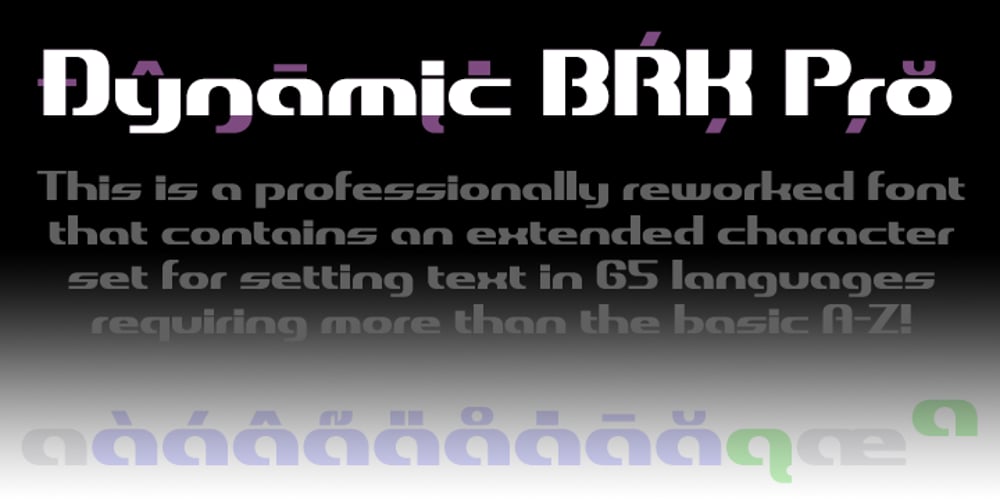
Dynamic BRK Pro Font Family was designed by Roger S. Nelsson, Brian Kent and published by CheapProFonts. Dynamic BRK Pro contains 2 styles and family package options. Dynamic by name, and dynamic by nature – this sleek font is perfect for logos and hightech quotes. The original lowercase f had a big overhang – I redesigned it so it fits better with accented letters, but also kept the original shape as a contextual alternate: the font automatically uses the “large” f before any low letters… Also the lowercase j would crash into any preceding letters with a righthand descender – so I also designed an automatic alternate j. Result: no colliding letters! The Slanted version adds a touch of speed. ALL fonts from CheapProFonts have very extensive language support: They contain some unusual diacritic letters (some of which are contained in the Latin Extended-B Unicode block) supporting: Cornish, Filipino (Tagalog), Guarani, Luxembourgian, Malagasy, Romanian, Ulithian and Welsh. They also contain all glyphs in the Latin Extended-A Unicode block (which among others cover the Central European and Baltic areas) supporting: Afrikaans, Belarusian (Lacinka), Bosnian, Catalan, Chichewa, Croatian, Czech, Dutch, Esperanto, Greenlandic, Hungarian, Kashubian, Kurdish (Kurmanji), Latvian, Lithuanian, Maltese, Maori, Polish, Saami (Inari), Saami (North), Serbian (latin), Slovak(ian), Slovene, Sorbian (Lower), Sorbian (Upper), Turkish and Turkmen. And they of course contain all the usual “western” glyphs supporting: Albanian, Basque, Breton, Chamorro, Danish, Estonian, Faroese, Finnish, French, Frisian, Galican, German, Icelandic, Indonesian, Irish (Gaelic), Italian, Northern Sotho, Norwegian, Occitan, Portuguese, Rhaeto-Romance, Sami (Lule), Sami (South), Scots (Gaelic), Spanish, Swedish, Tswana, Walloon and Yapese.